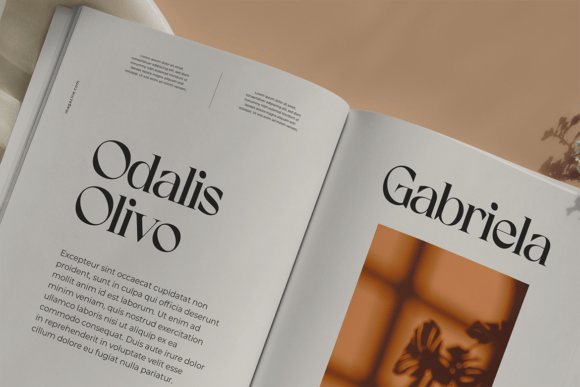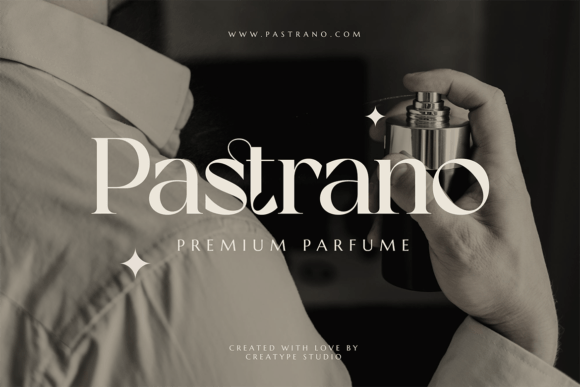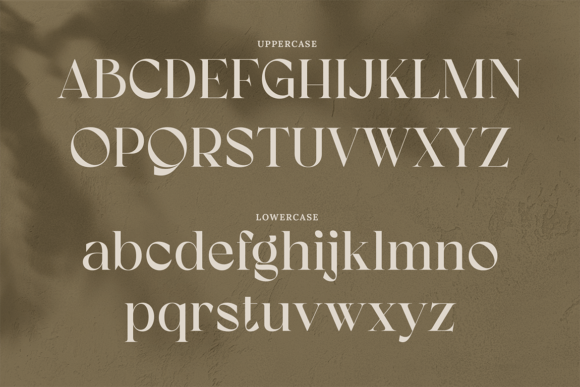
Introduction to Koolegant Font
As a designer, have you ever stared at a blank canvas, waiting for the perfect font to spark your creativity? For me, that moment came when I stumbled upon the Koolegant Font. Its elegant, modern aesthetic captivated me, and I knew I had to learn more. This sophisticated font is a game-changer for any creative project, offering a unique blend of style and sophistication that’s sure to elevate your designs.
The Koolegant Font is a high-quality design resource that’s perfect for branding projects, logos, and social media posts. Its PUA-encoded features allow for seamless access to its amazing glyphs and ligatures, making it a breeze to customize and use in your designs. Whether you’re working on a wedding design, product packaging, or invitation, this font is sure to bring a touch of elegance and sophistication to your work.
Key Features of Koolegant Font
- High-quality design resource ideal for creative projects, including logos, posters, and infographics.
- Unique, modern design with a transparent background, allowing for versatility in creative projects.
- Designed with high resolution in mind, suitable for printing and digital use at 300 DPI.
- Supports various font sizes, from small to large, making it suitable for a wide range of applications.
- Perfect for designers and artists looking for a unique, high-quality font to enhance their creative projects.
Honest Review: Koolegant Font
As a designer, I’m always on the lookout for high-quality design resources that can elevate my creative projects. Recently, I stumbled upon the Koolegant Font, and I’m excited to share my thoughts on this versatile font.
What works well about the Koolegant Font is its unique blend of modern and vintage styles. The font features a transparent background, making it easy to pair with any design element. I’ve used it in various projects, from digital displays to print materials, and it always looks great.
- ✨ Unique blend of modern and vintage styles
- ✨ Easy to pair with any design element due to transparent background
However, I do have some limitations to mention. The Koolegant Font is a bit limited in terms of character sets, which can make it less suitable for longer text-based projects.
- ⚠️ Limited character sets
- ⚠️ May not be ideal for longer text-based projects
Overall, I’m impressed with the Koolegant Font, and I think it’s a great addition to any designer’s toolkit. With its unique style and transparent background, it’s perfect for adding a touch of personality to your creative projects.
How to Use Koolegant Font
The Koolegant Font is a high-quality, versatile design resource ideal for creative projects. Its unique style and transparent background make it perfect for adding a touch of sophistication to any design.
Using Koolegant Font in Popular Design Applications
You can use the Koolegant Font in a variety of design applications, including:
– Use the Koolegant Font in your presentations and documents for a touch of elegance.
Tips for Getting the Most Out of Koolegant Font
For optimal results, use the Koolegant Font in conjunction with other high-quality design elements. Experiment with different font sizes, colors, and arrangements to achieve a unique look.
The Koolegant Font is ideal for:
- Print materials (business cards, brochures, etc.)
- Digital presentations and documents